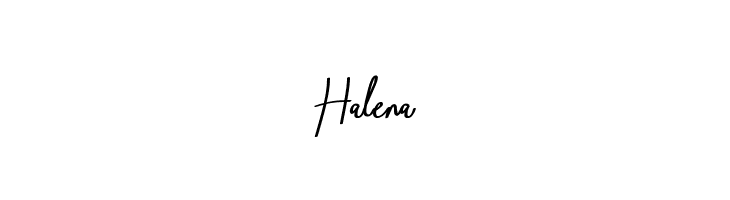
A playful and elegant handwritten font with flowing, slightly irregular strokes.
A delicate, flowing script font with elegant, thin strokes.
An elegant, flowing script font with graceful, delicate strokes.
A whimsical and playful font with artistic letterforms and dynamic curves.
A playful handwritten font with smooth, connected letterforms.
A flowing, cursive script font with elegant, handwritten characteristics.